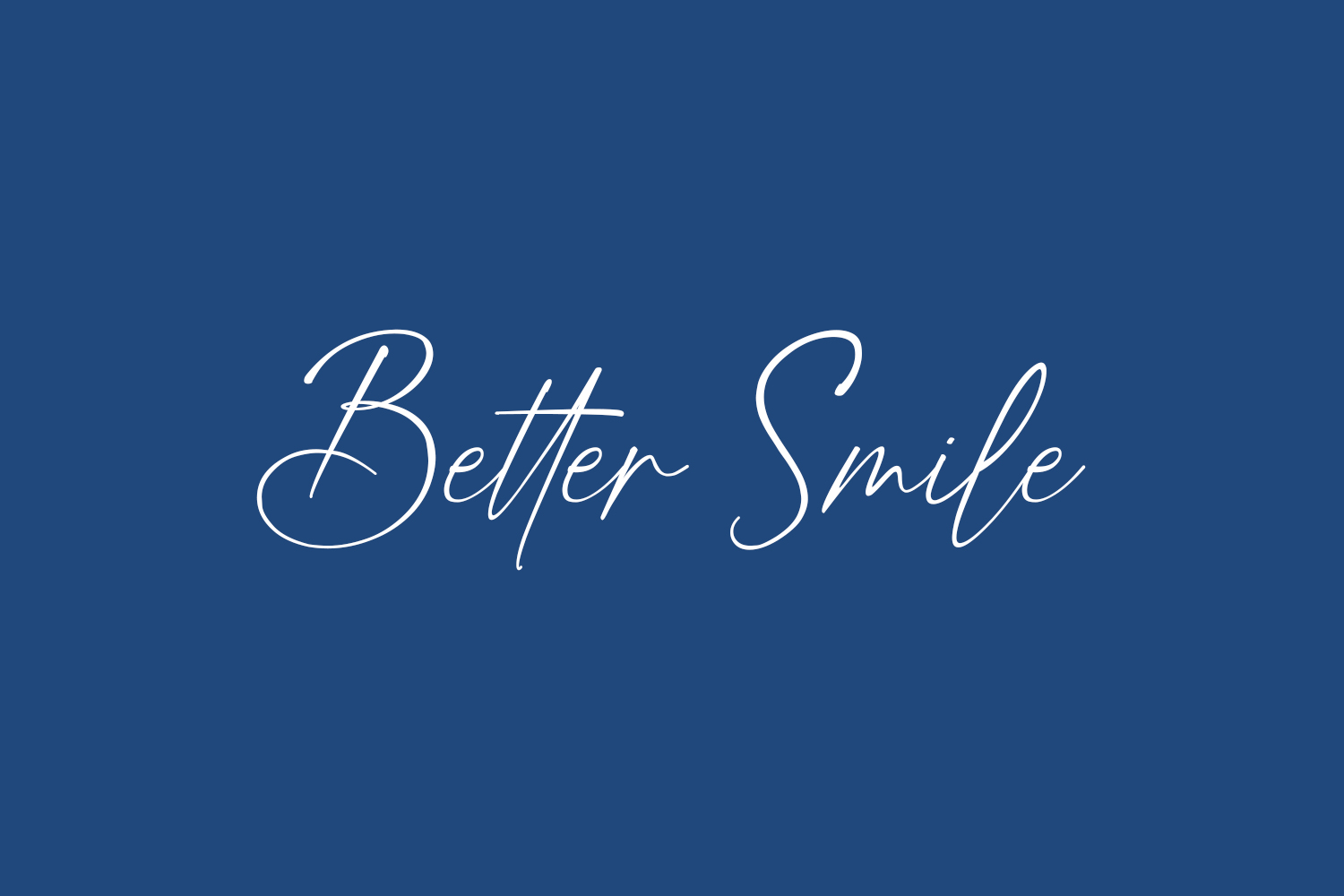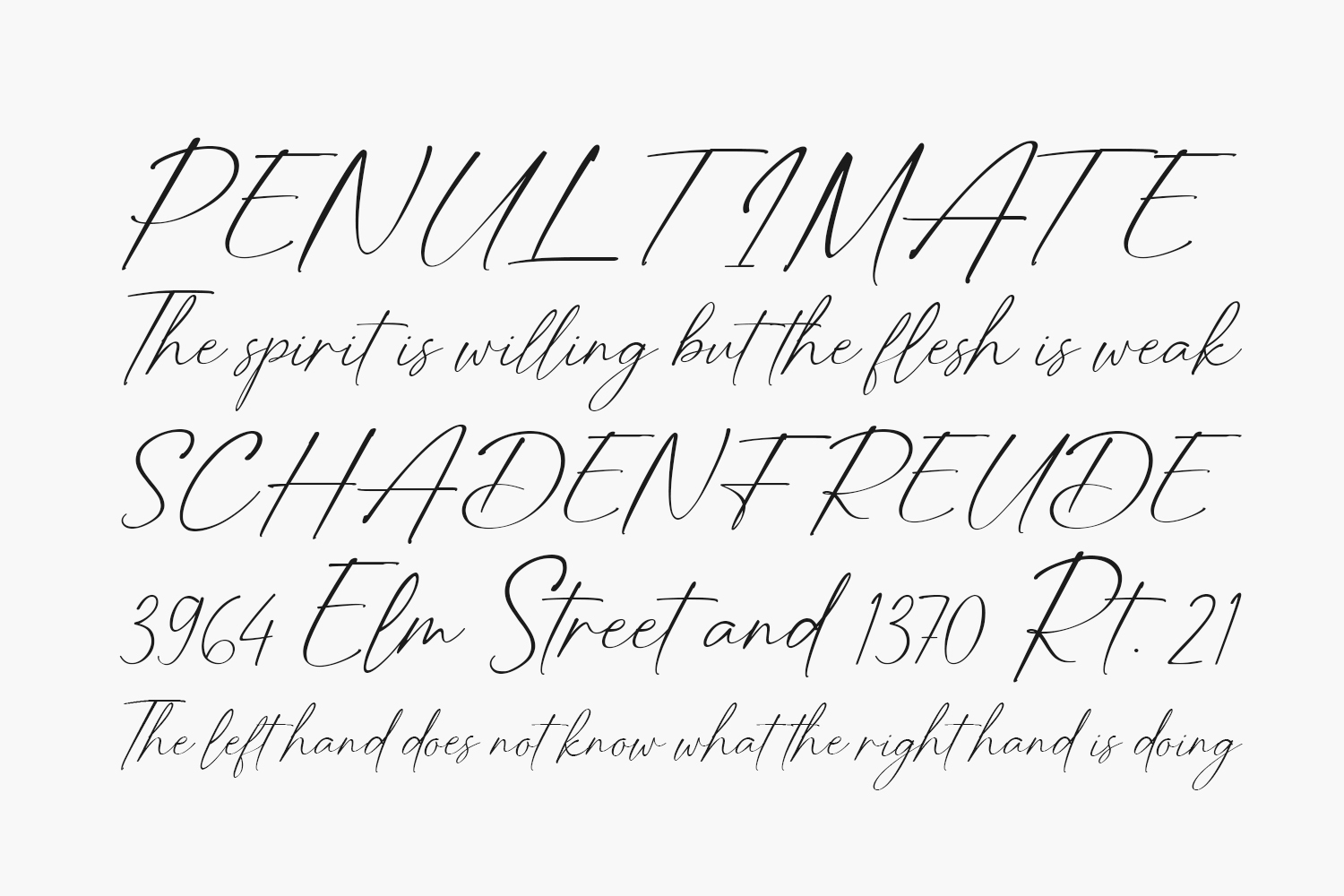
Elevate your designs with the captivating charm of Better Smile Free Font, a stunning signature-style typeface. Ideal for branding, weddings, quotes, logos, t-shirts, tote bags, cards, banners, social media, and beyond. Let your creativity shine with this versatile font. Download the font for free if you need it for personal use or purchase the full version for commercial use.
Designed by Heinzel Std